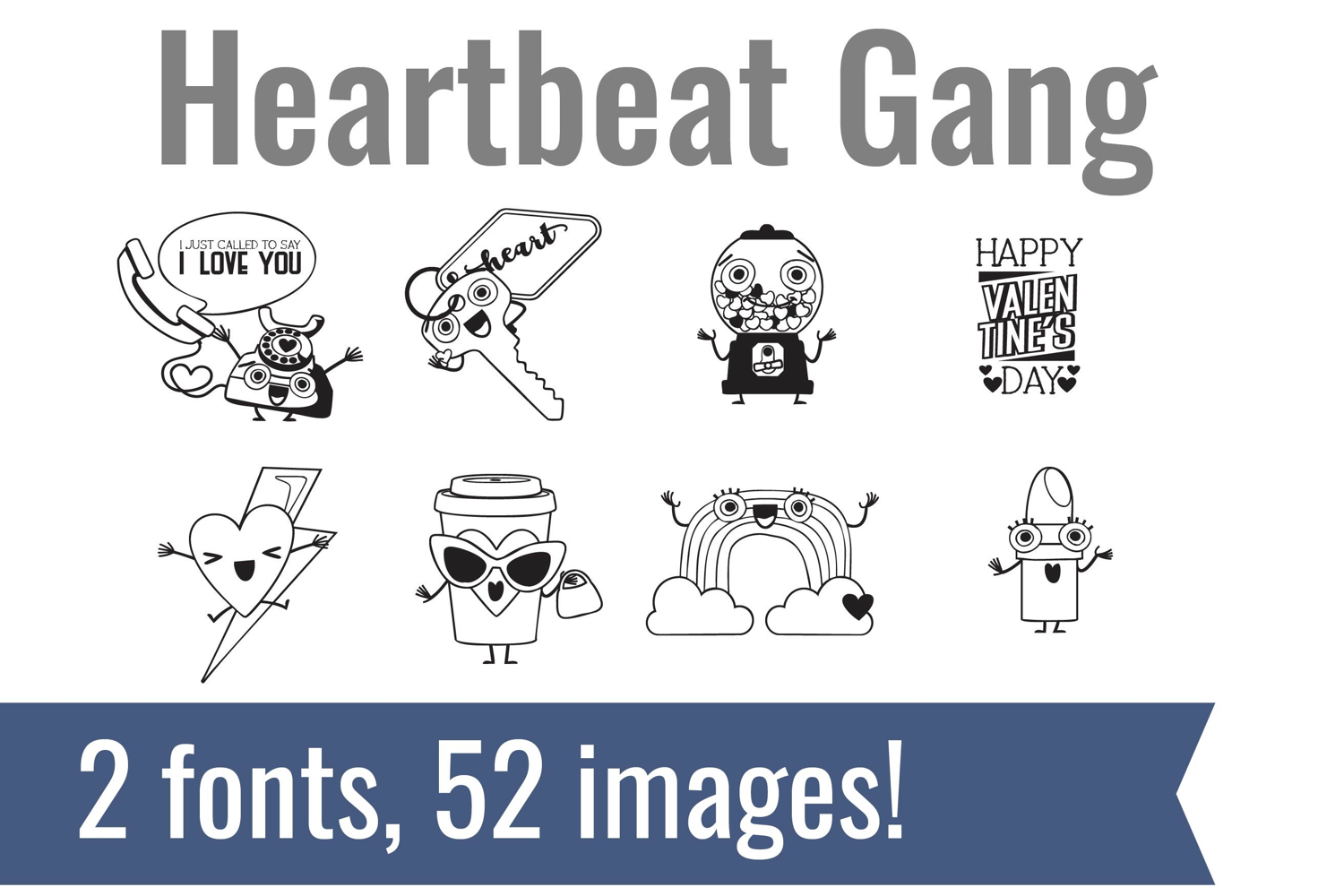
Heartbeat Gang Dingbats
Unlock endless creativity with two perfectly coordinated fonts! There are two dingbat fonts in this bundle, featuring the cutest, heart-centric images and emojis.
Tired of spending hours searching for the perfect icons and graphics? Our dingbat fonts put dozens of cohesive, scalable designs at your fingertips. Simply install the font and type a letter to produce a pre-made image. From charming seasonal icons for holiday cards to intricate frames for your invitations, these fonts let you create stunning designs for vinyl cutting, paper crafts, planners, and more.